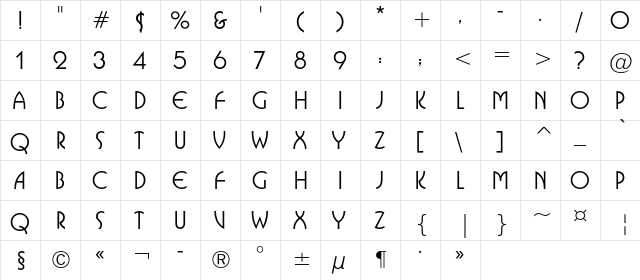
BureauAP Regular
Design Context for BureauAP Typeface
BureauAP offers clean, dependable letterforms without strong stylistic allegiance, making it a practical choice for designers who need flexibility.